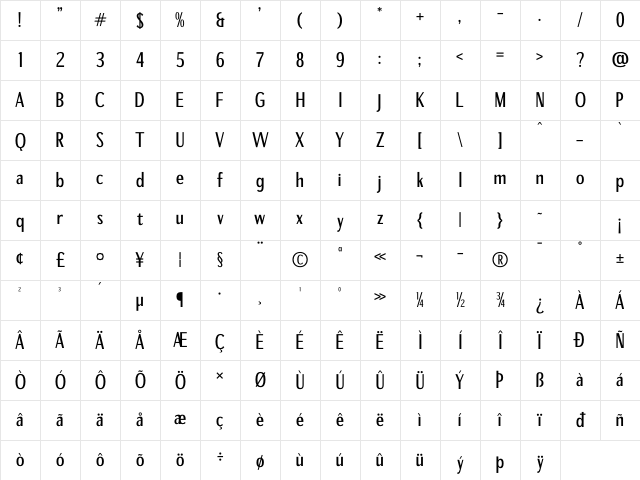
Complete Benedict Sans Bold Regular glyph index. Displaying only characters natively supported by Benedict Sans Bold Regular font.
Benedict Sans Bold is a composed and adaptable typeface that performs quietly and consistently across a wide range of design contexts. Its bold stroke weight gives it real presence on the page.